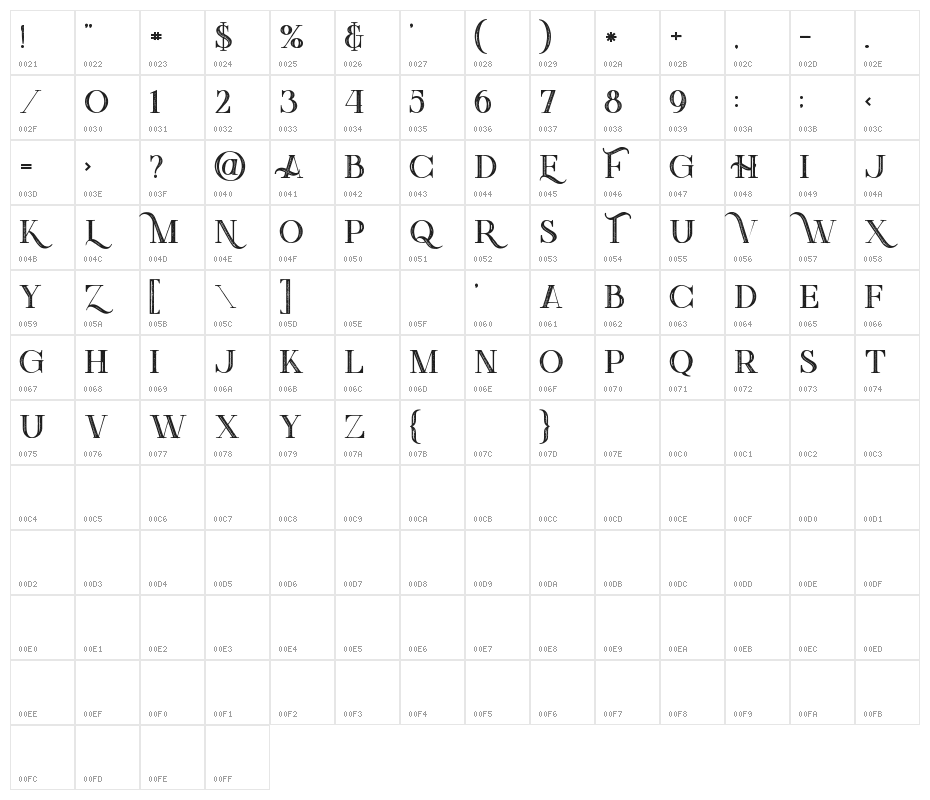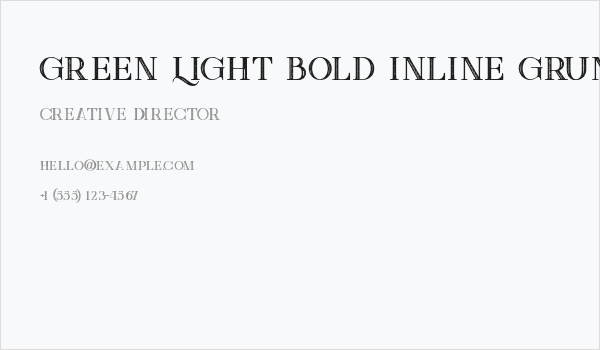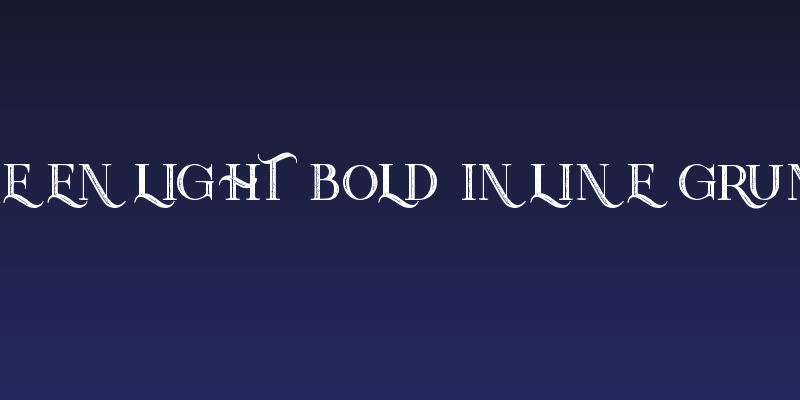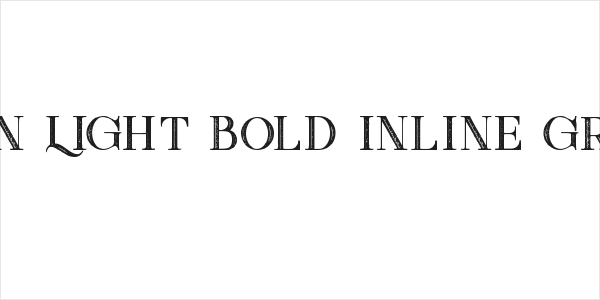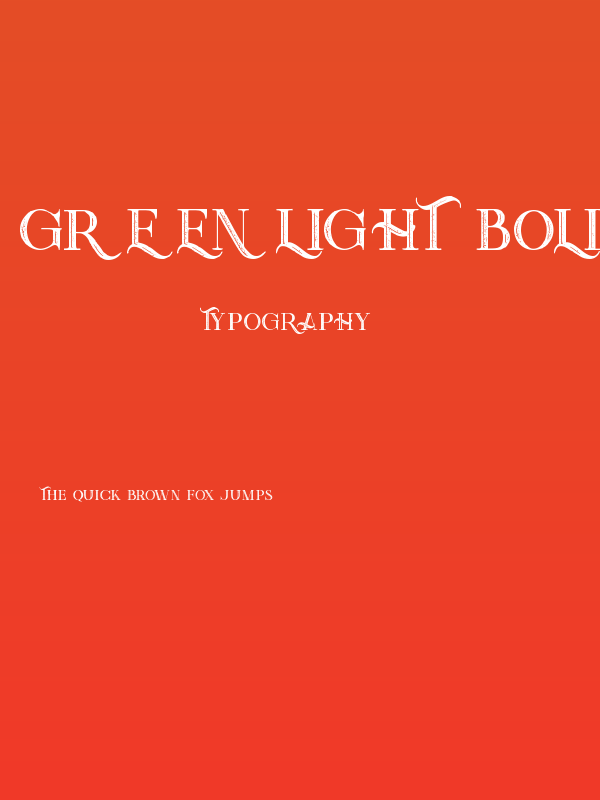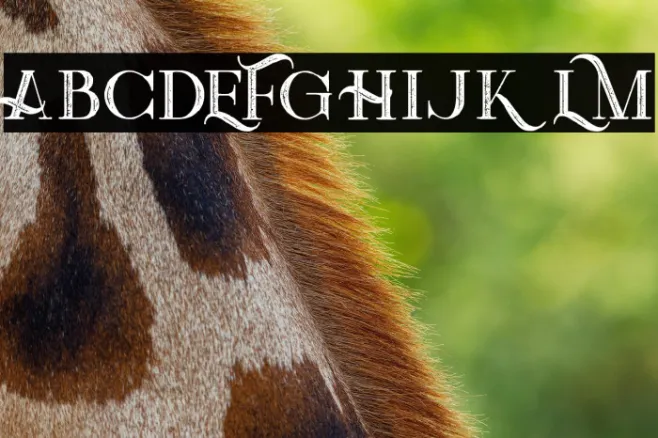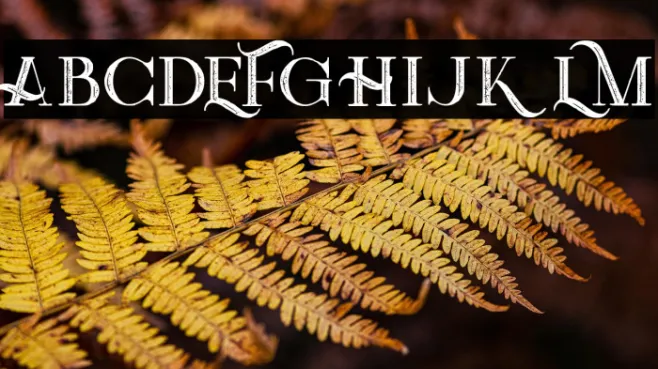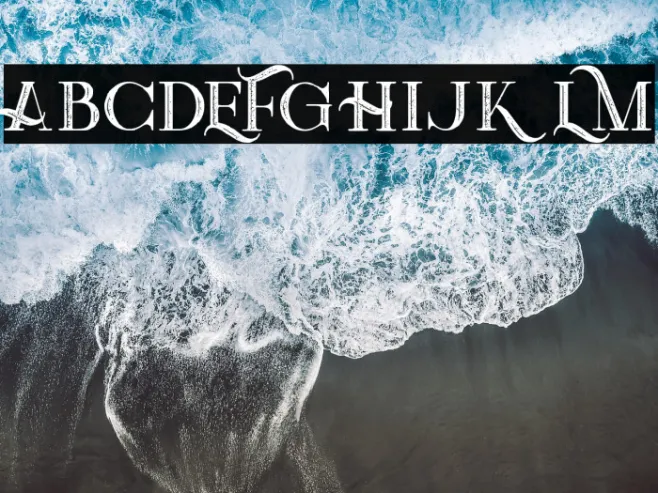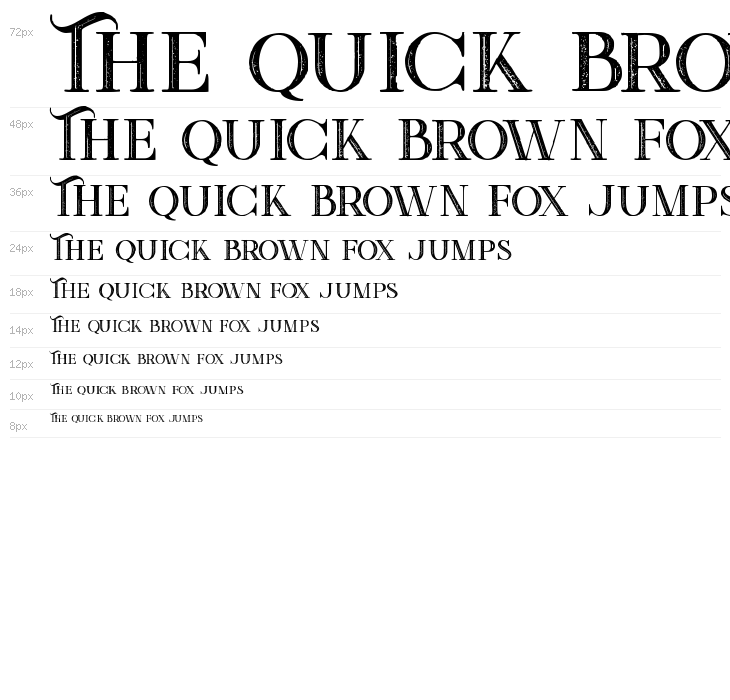
Green Light Bold Inline Grunge Font
Green Light Bold Inline Grunge Description
This font exhibits a bold and decorative style with a grunge effect, characterized by its inline detailing and distressed texture. The uppercase letters feature unique flourishes and extended serifs, giving it a vintage and artistic appearance. The numbers and special characters maintain the same distressed look, adding to the overall cohesive design. The font's boldness and intricate details make it stand out, suitable for projects that require a strong visual impact. Its grunge aesthetic is perfect for designs that aim to convey a sense of ruggedness or nostalgia.
| Overall Style | Vintage, Decorative |
| Proposed Projects | Ideal for posters, album covers, vintage-themed designs, and branding that requires a bold statement. |